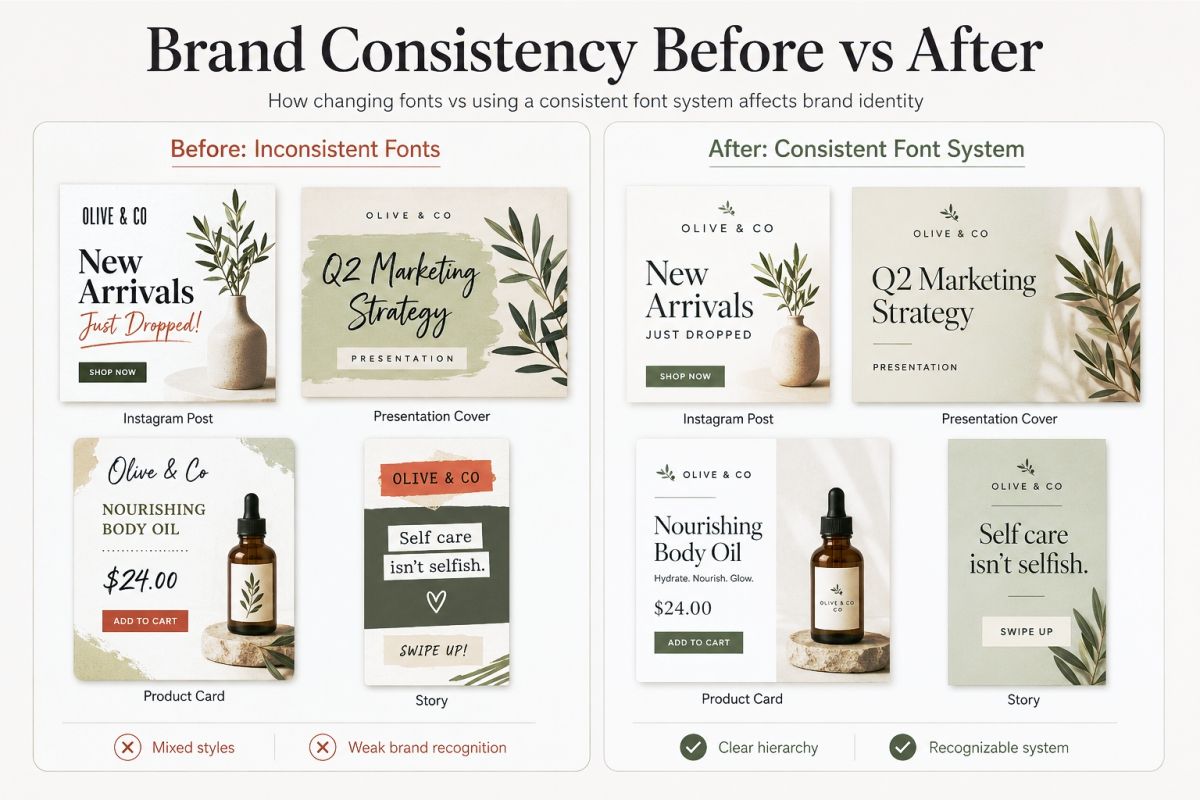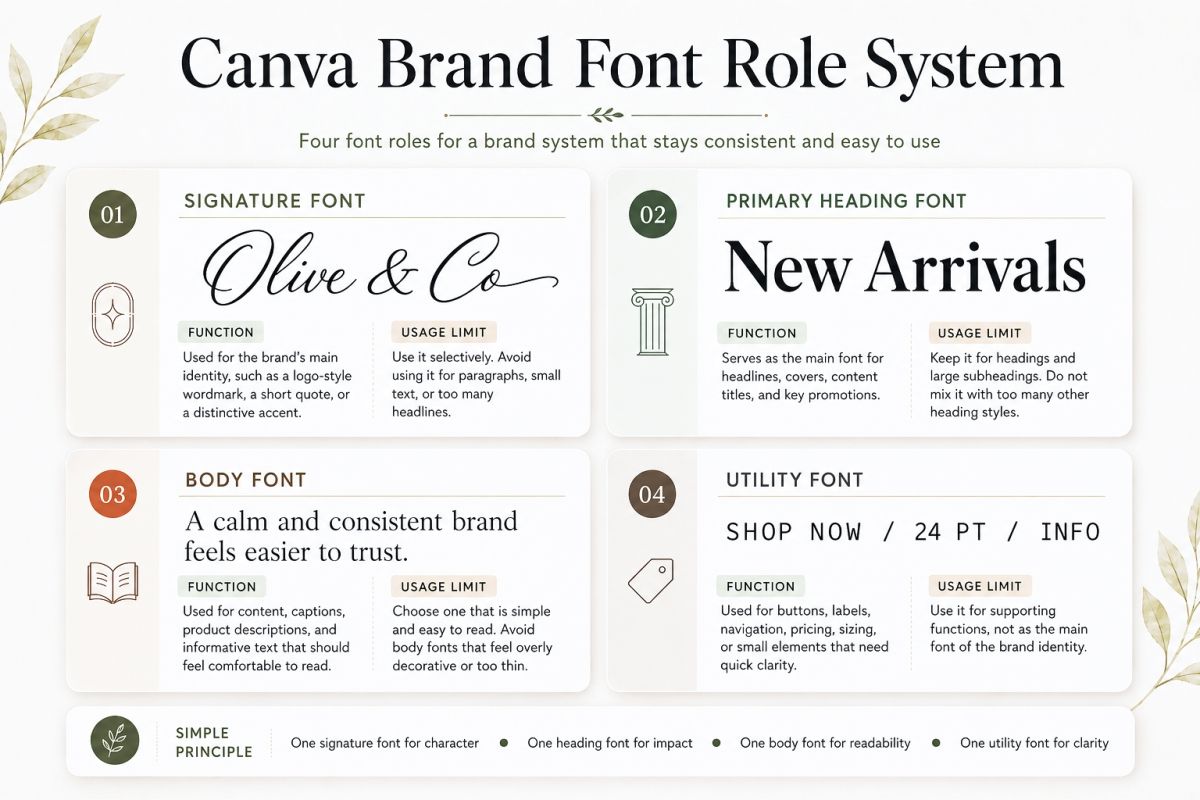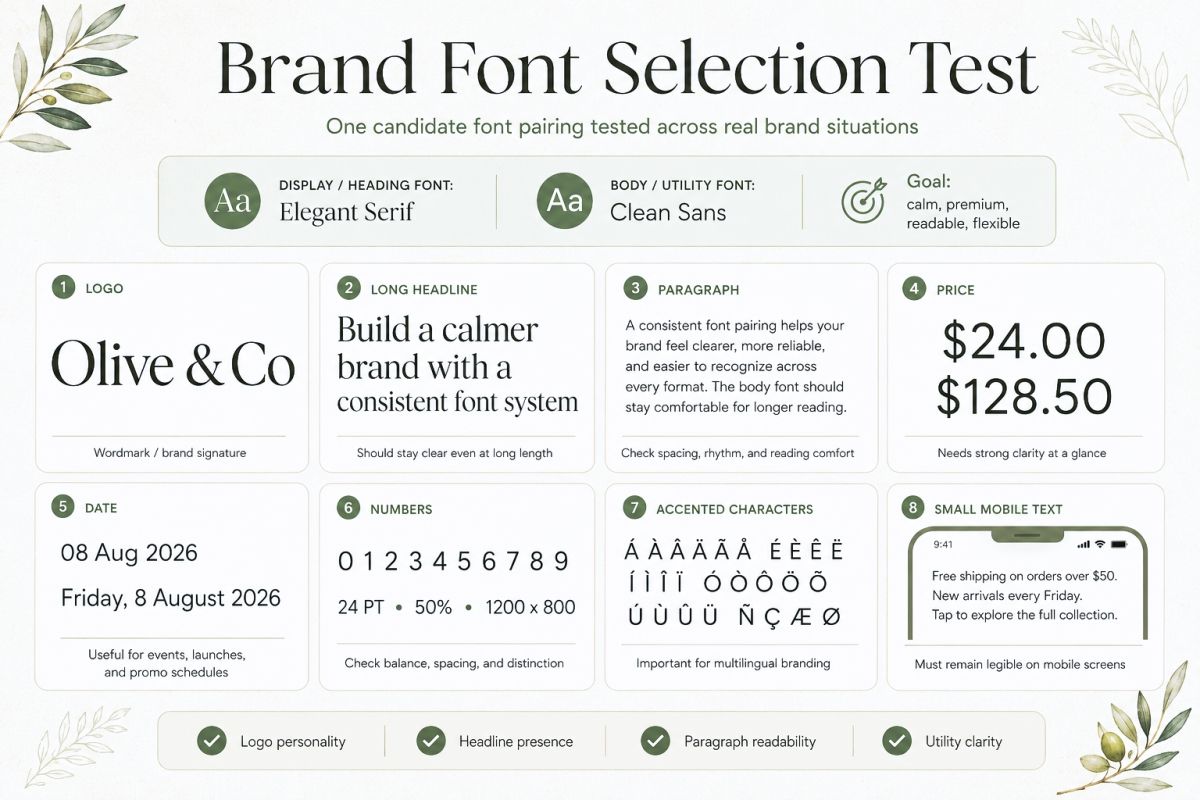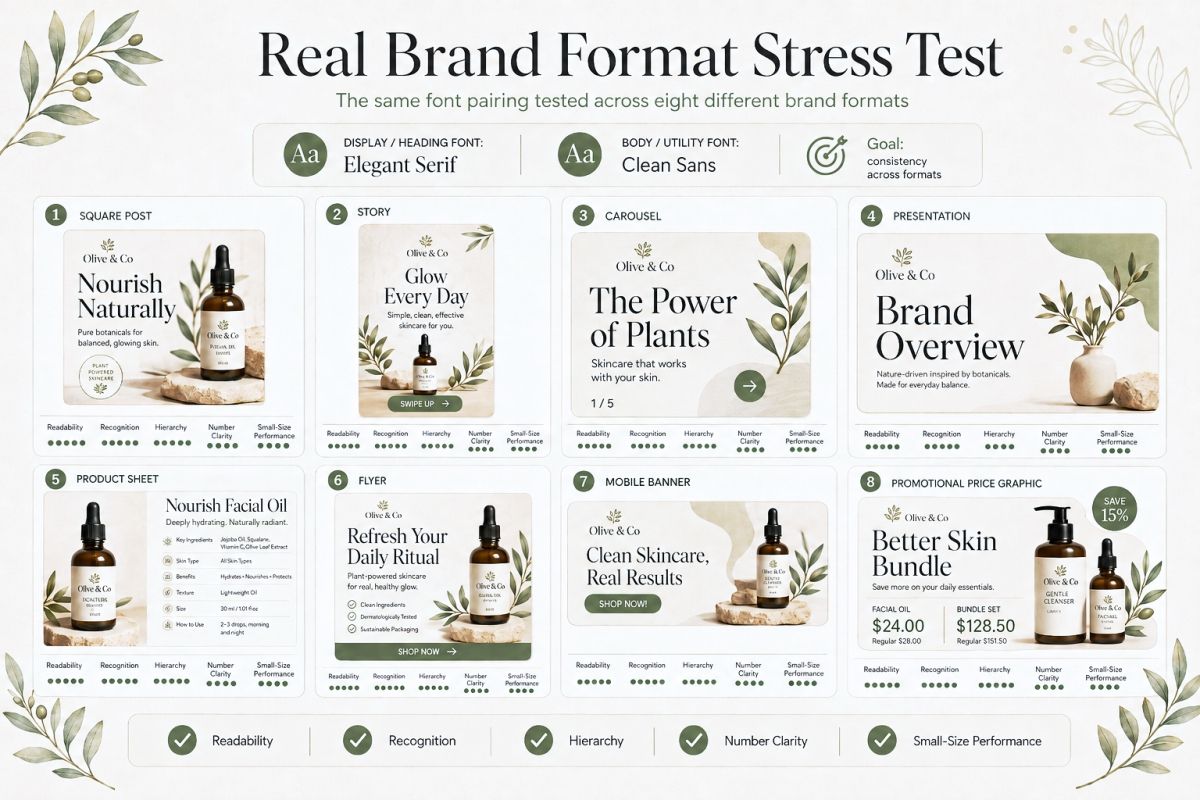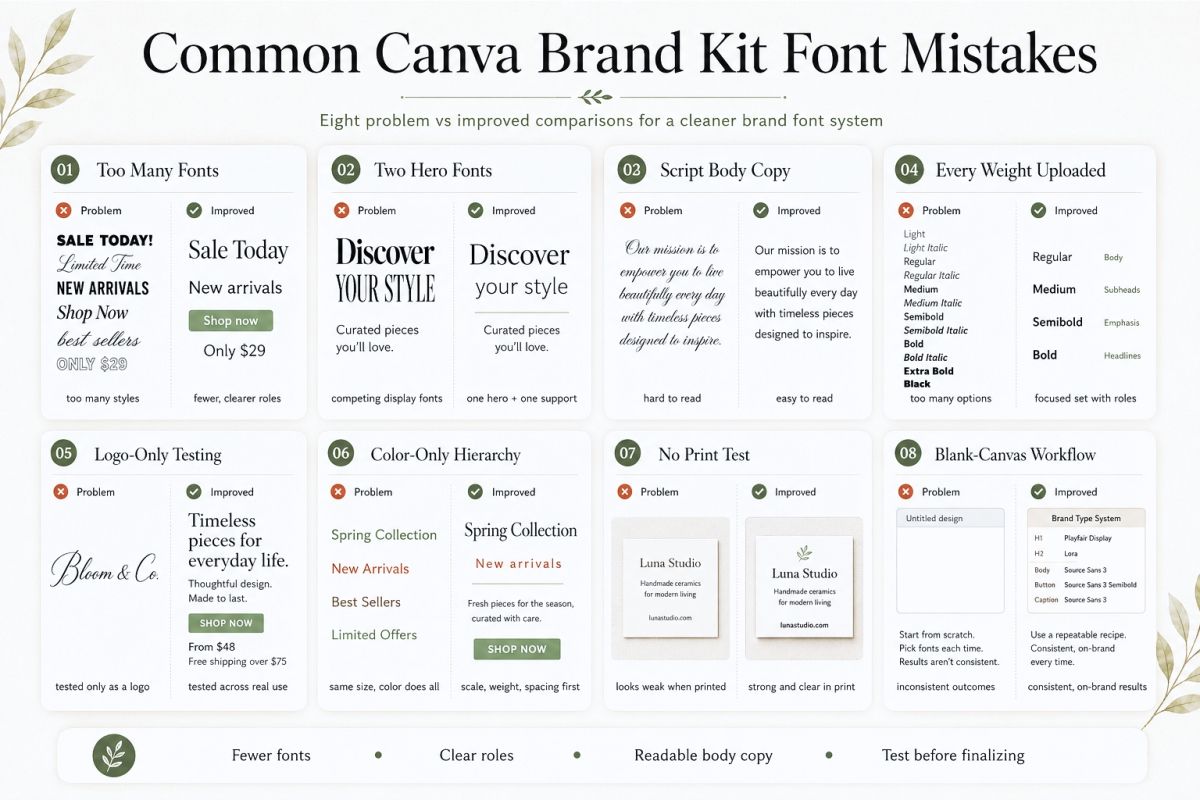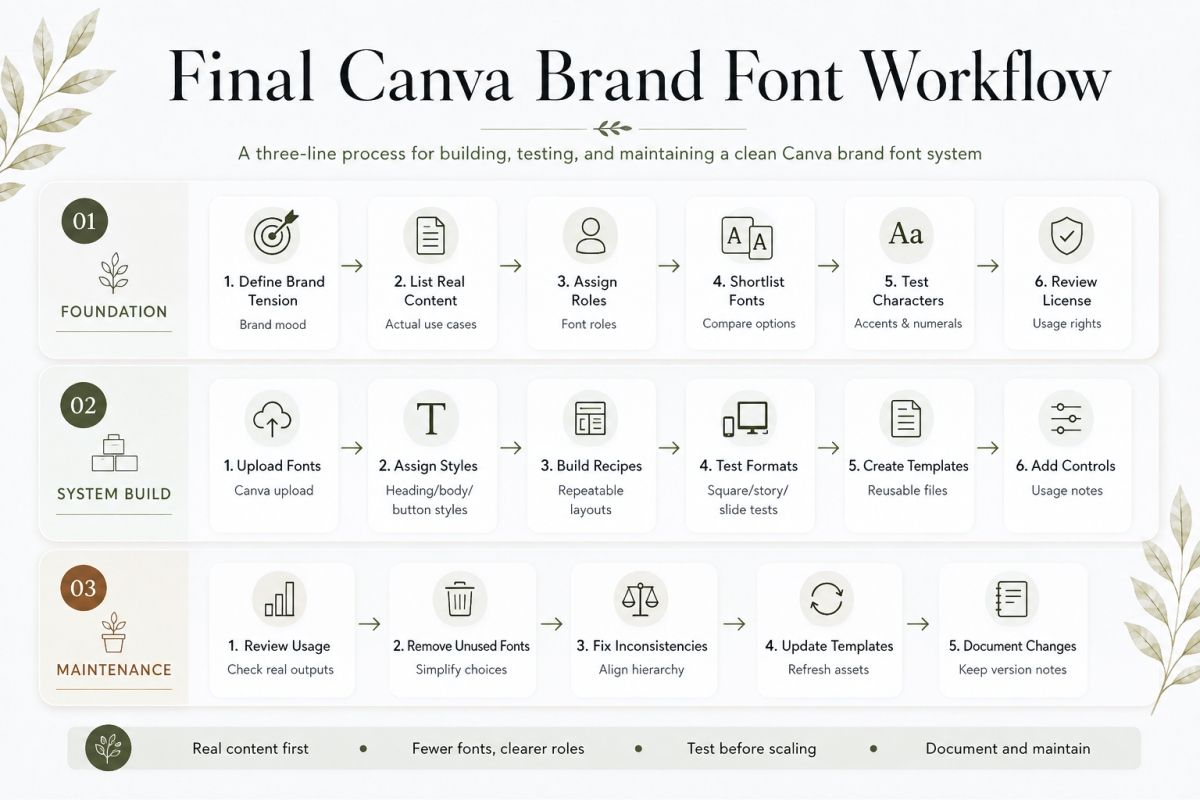
Canva Brand Kit Fonts: How to Keep Your Visual Identity Consistent
A brand can have a beautiful logo, a thoughtful color palette, and polished photography.
Yet it can still look inconsistent.
Often, the problem is typography.
One Instagram post uses a geometric sans serif. The next uses a handwritten font. A presentation introduces another serif. Then a team member finds a “similar” font for an email graphic.
Each design may look fine on its own. Together, they no longer feel like the same brand.
This is where Canva Brand Kit fonts become useful.
A Brand Kit gives you one place to store and organize your approved typography. More importantly, it can turn loose font choices into a repeatable visual system.
The goal is not to make every design identical.
The goal is to make every design feel related.
In this guide, I’ll show you how to choose, upload, organize, and use your Canva brand fonts. I’ll also explain how to build enough consistency without removing all creative freedom.
Canva Brand Kit Fonts How To Keep Your Visual Identity Consistent Preview1  Brand Consistency Before Vs After
What Are Canva Brand Kit Fonts?
Canva Brand Kit fonts are the typefaces assigned to your brand inside Canva.
Depending on your setup and permissions, you can choose fonts already available in Canva or upload your own licensed font files. You can then assign fonts to common roles such as headings, subheadings, and body text.
This makes your approved fonts easier to find while designing.
You no longer need to remember the exact font name every time. Your team also has less reason to browse through hundreds of unrelated choices.
However, adding fonts to a Brand Kit does not automatically create consistency.
A folder of approved fonts is only the starting point.
You still need to decide:
• Which font handles the main message?
• Which font supports longer information?
• Which weights are approved?
• When can someone use italics or uppercase?
• Which font should never appear in body copy?
• What happens when the design becomes very small?
Without those decisions, people can use the correct fonts in the wrong way.
That is why I prefer to treat a Canva Brand Kit as a decision system, not just an asset library.
Why Font Consistency Matters More Than Font Variety
It is easy to believe that a brand needs many font choices to stay interesting.
Usually, it does not.
Most visual variety can come from scale, weight, spacing, composition, color, and image direction. You can create dozens of different layouts with the same two font families.
Using more fonts often creates more problems than solutions.
A growing font library can lead to:
• Unclear hierarchy
• Similar fonts competing with each other
• Random stylistic changes
• Inconsistent social media posts
• Templates that become difficult to update
• Team members making different assumptions
• Designs that look polished but unrelated
A small font system gives you useful boundaries.
Those boundaries make decisions faster. They also help your audience recognize your brand before they consciously notice the logo.
Consistency creates recognition through repetition.
But repetition should happen at the system level, not by copying the exact same layout every time.
Start With Font Roles, Not Font Names
Before uploading anything, define the jobs your fonts need to perform.
This is more useful than beginning with a list of typefaces you happen to like.
I usually divide a small brand font system into four possible roles.
1. Signature Font
The signature font carries the strongest personality.
It might be a retro display font, an elegant serif, a relaxed handwritten style, or a bold condensed typeface.
Use it for short, visible text such as:
• Campaign headlines
• Product names
• Short statements
• Event titles
• Selected social media hooks
• Packaging headlines
A signature font should be memorable.
It does not need to handle every sentence.
In fact, many expressive fonts become more effective when you use them less often.
2. Primary Heading Font
The primary heading font handles most titles and section headings.
It should still feel distinctive, but it normally needs more flexibility than your signature font.
Look for a family that works across:
• Social media graphics
• Presentation slides
• Blog graphics
• Lead magnets
• Posters
• Product listings
• Marketing documents
A font with several weights can be helpful here. You can create contrast without introducing another family.
It removes the wrong choices, so you have more room to make the right ones.